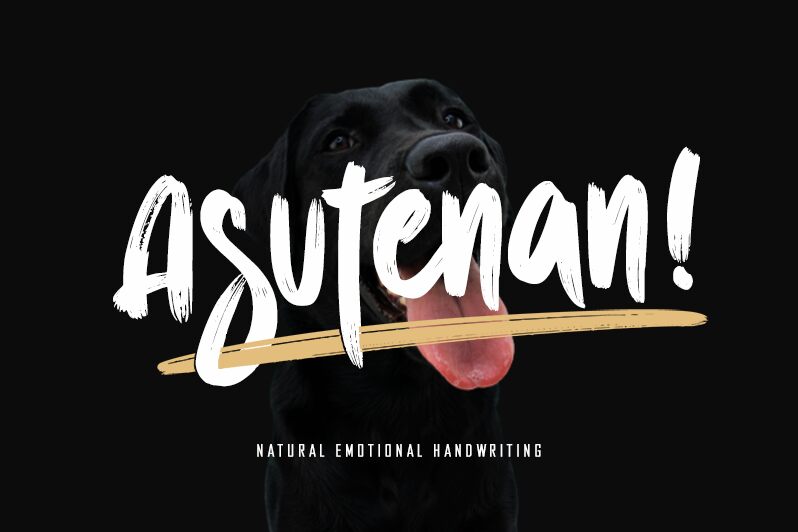
Asutenan emerges as a masterpiece of the brush font family, meticulously crafted by the adept hands at Letterara. With its semi-light weight and semi-condensed width, this font dances between casual elegance and striking boldness. The natural flow of Asutenan's cursive letters brings an organic, handmade quality to the table, making it an impeccable choice for designers aiming to inject a touch of personality and distinction into their work.
Whether gracing the covers of books, punctuating the headlines of posters, or adding sophistication to branding and logos, Asutenan is versatile enough to elevate any project. Its legible yet expressive style ensures that your message not only stands out but resonates with viewers on a deeper, more artistic level. Embrace Asutenan for your next creative endeavor and watch as it adds that much-coveted flair to your designs.